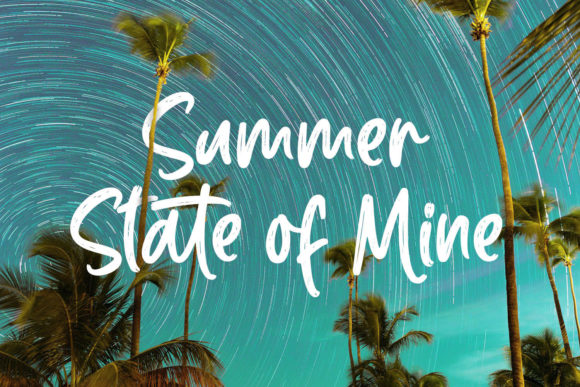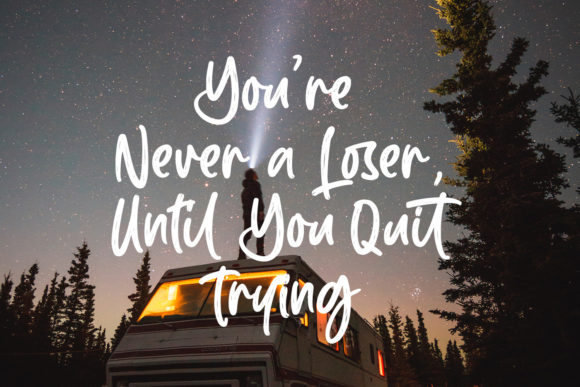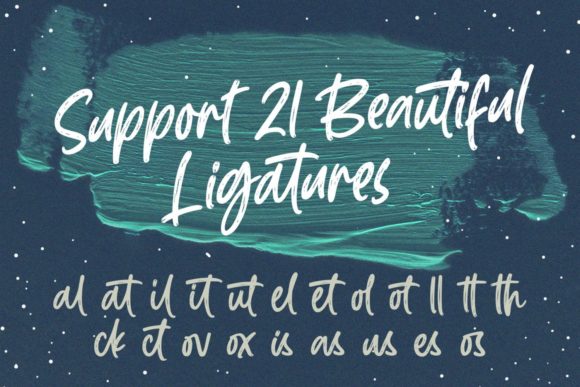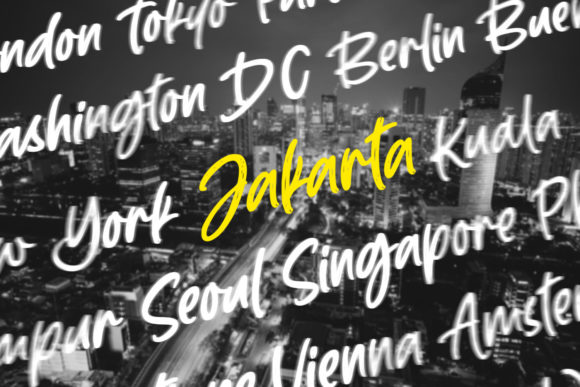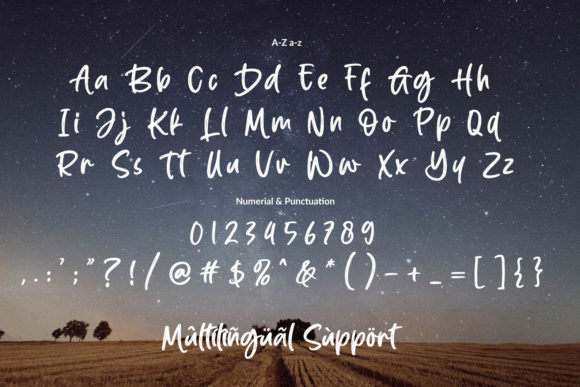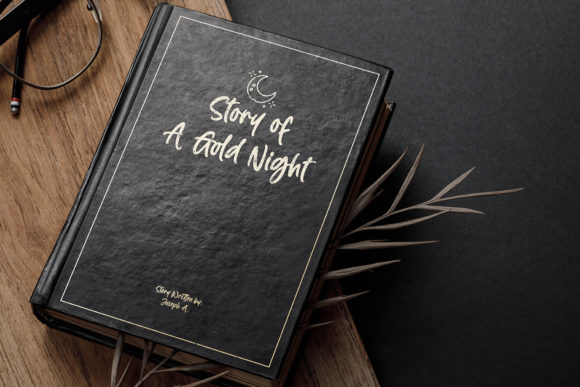
The Perfect Typography Companion for Your Creative Projects
Have you ever been stuck in the middle of a design project, staring at a blank canvas, trying to find the perfect font to bring your idea to life? It’s a familiar feeling, and one that can be frustrating, to say the least. But what if you had a font that could elevate your creations, no matter the topic or style? Enter the Gold Night Font, a cool brushed display font that’s sure to become a staple in your design library.
This versatile font is designed to be a wonderful asset to any project, whether you’re working on a bold, eye-catching campaign or a more subtle, elegant design. With its unique aesthetic, Gold Night Font has the potential to enhance any creation, making it a valuable addition to any designer’s toolkit.
Gold Night Font Key Features
- Font Style: Gold Night Font is a beautiful, elegant script font designed to evoke a sense of luxury and sophistication.
- Unique Characteristics: Features intricate details and ornaments, including swashes, flourishes, and ligatures, making it perfect for adding a touch of elegance to designs.
Gold Night Font Review
First off, I want to say that I’m a fan of this font. It’s ✨ eye-catching and perfect for adding a touch of luxury to any design. The bold lines and elegant curves give it a sophisticated look that’s hard to resist.
Some of the things that really stand out to me are:
- ✨ High contrast between light and dark letters: This font is perfect for creating a sense of depth and visual interest.
- ✨ Versatility: Gold Night Font can be used in a variety of contexts, from logos and branding to digital displays and print materials.
- ✨ Beautiful ligatures: The connections between letters are smooth and elegant, adding to the overall sophistication of the font.
- ⚠️ Limited character set: While the font is beautiful, it’s not as comprehensive as some other options on the market.
- ⚠️ Potential readability issues: The font’s high contrast and bold lines can make it difficult to read in certain situations, such as small text sizes.
Overall, I think Gold Night Font is a great choice for designers who want to add a touch of luxury and sophistication to their designs. While it may not be the most comprehensive font, its unique look and feel make it a great addition to any design toolkit.
Tips for Getting the Most Out of Gold Night Font
Use Gold Night Font to add a touch of luxury and sophistication to your designs.
Pair it with metallic colors and bold graphics for a high-end look.
Experiment with different font sizes and styles to create a unique and eye-catching effect.
Gold Night Font is perfect for:
Luxury branding and marketing materials
Special occasion graphics and templates